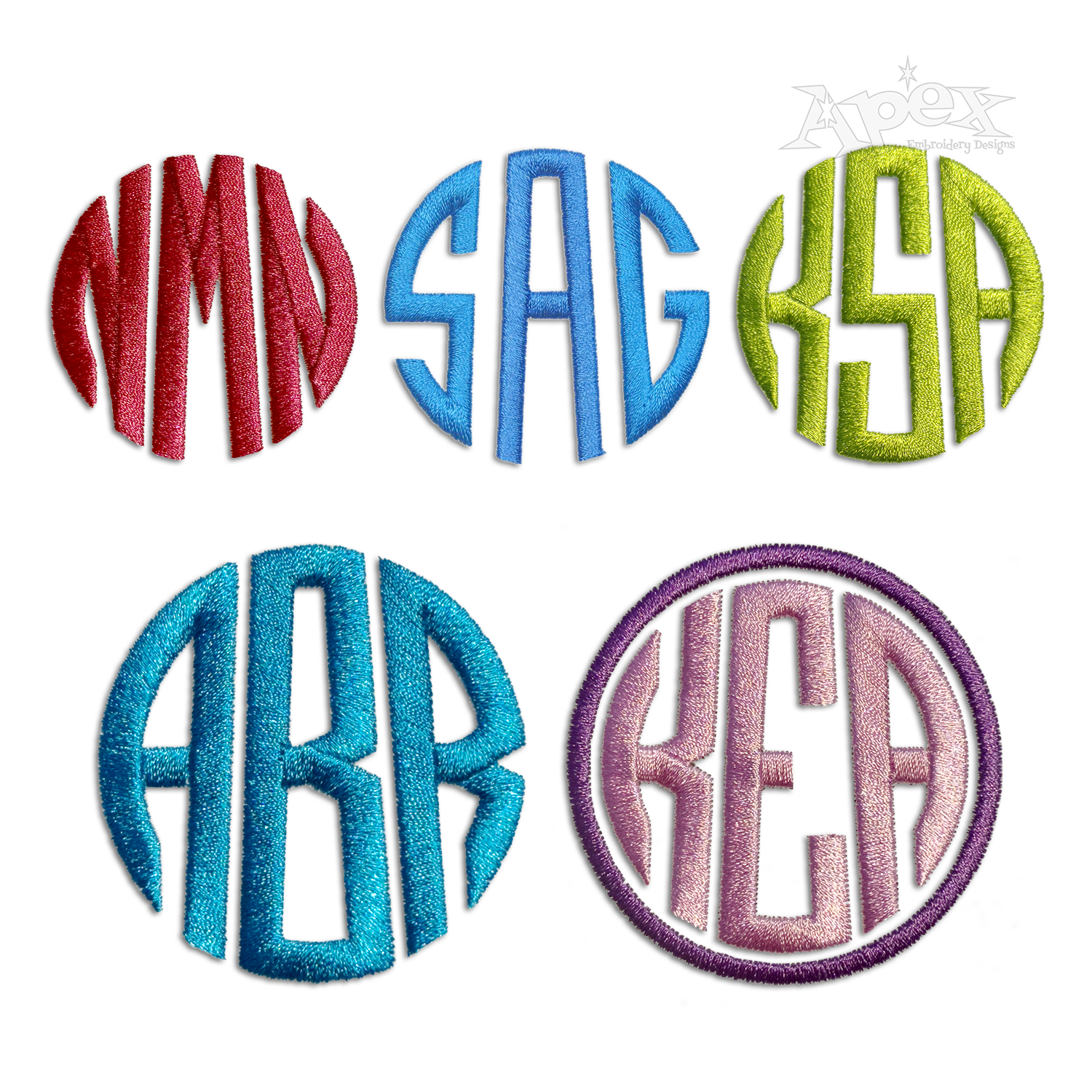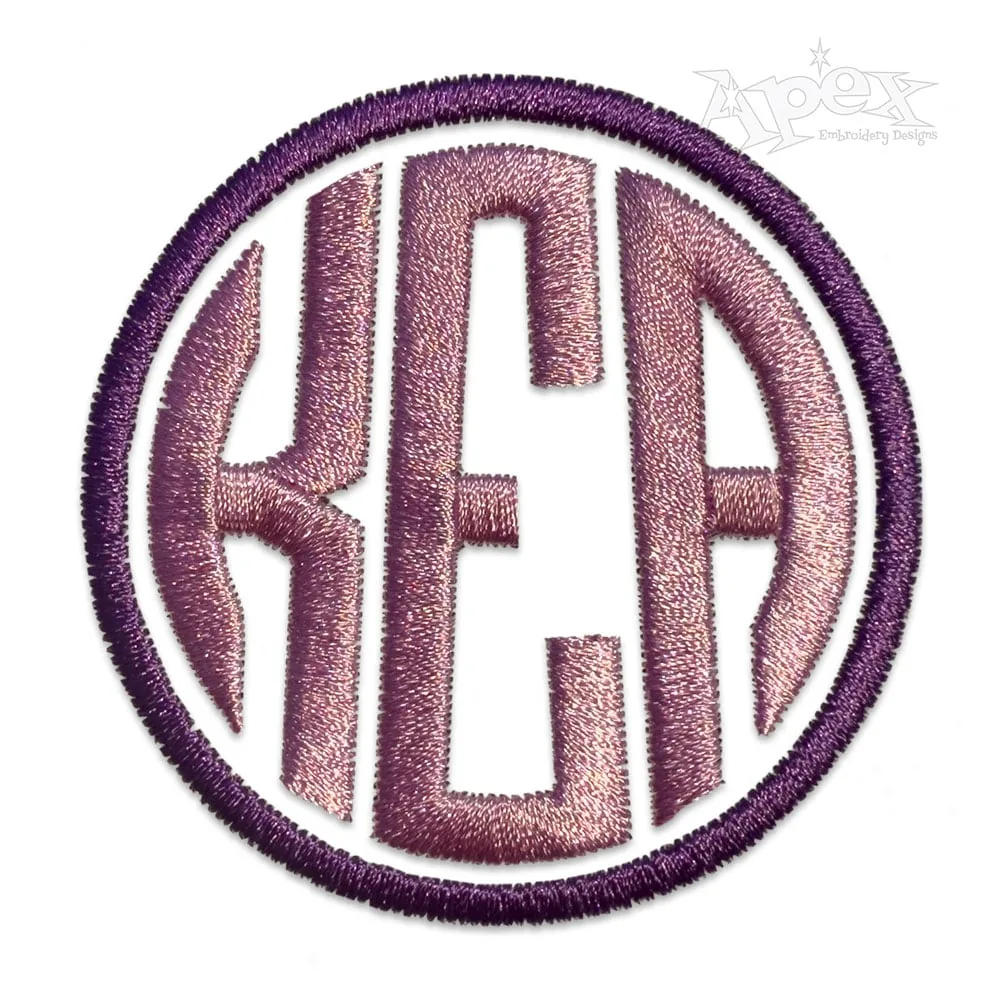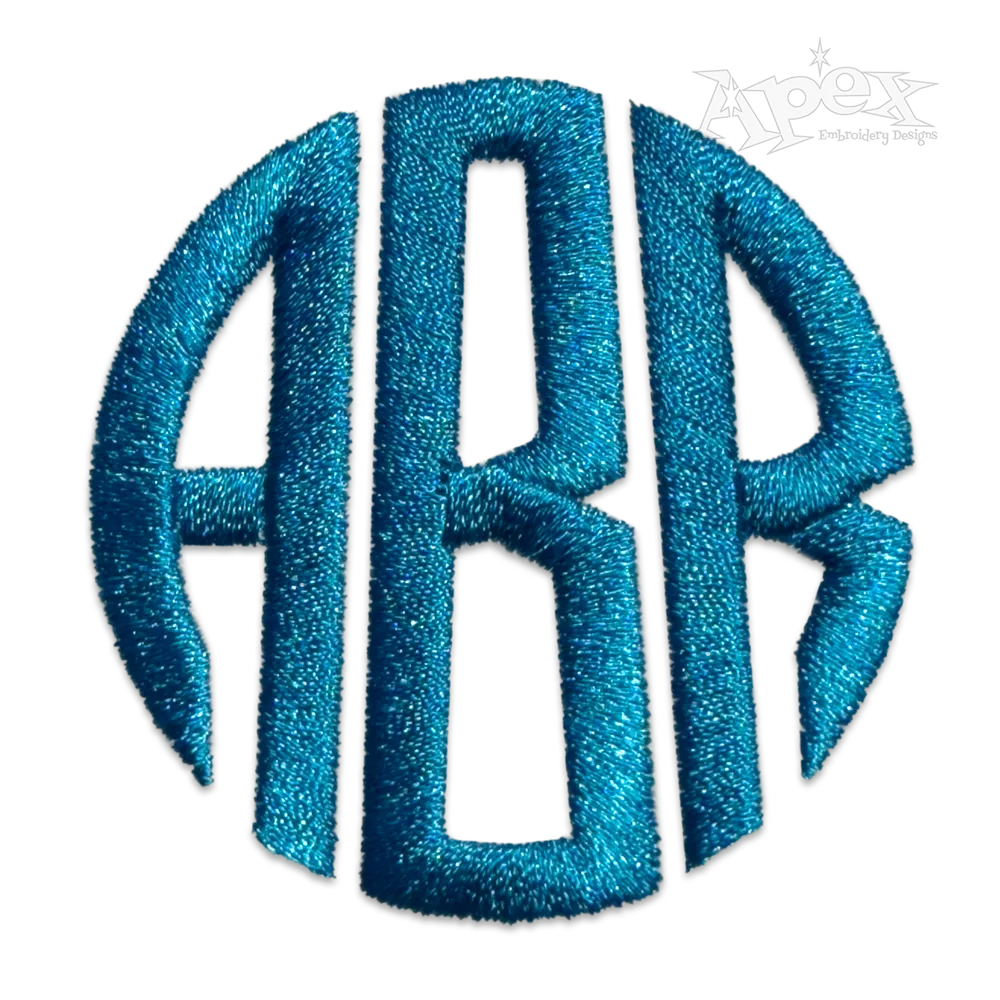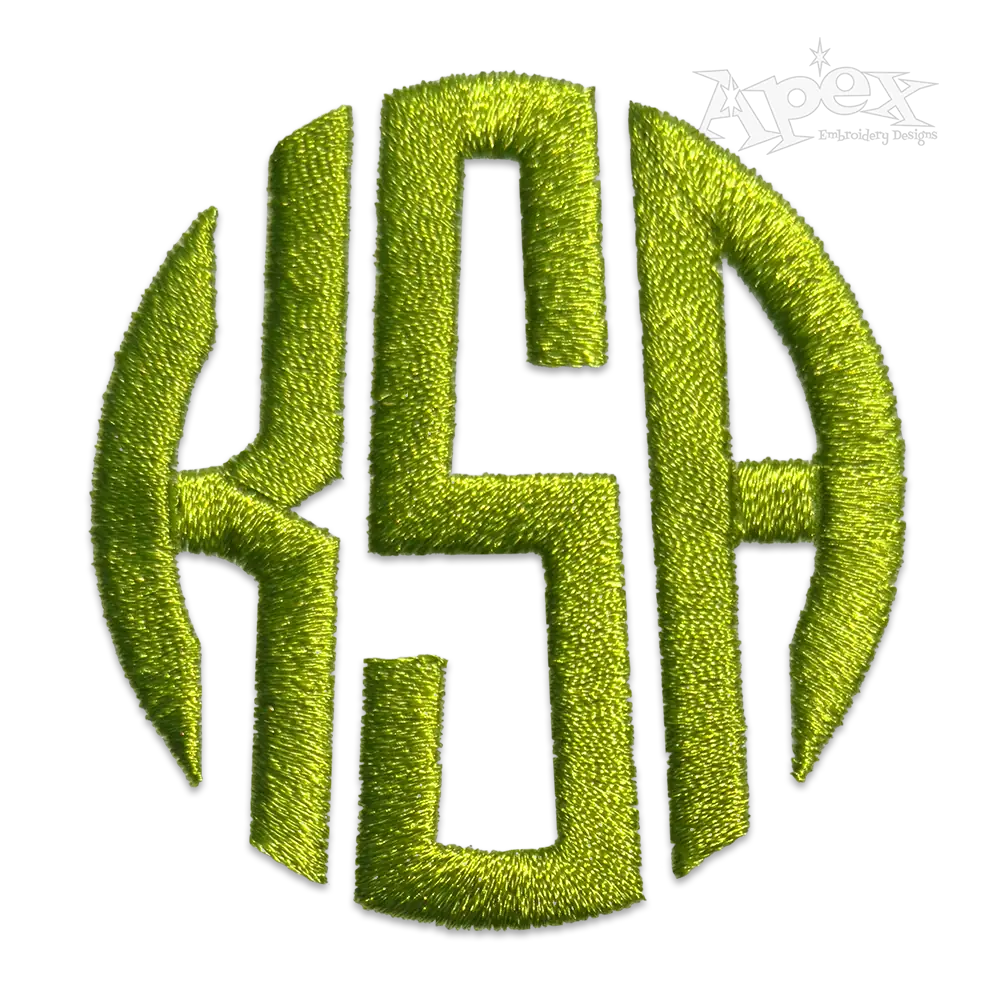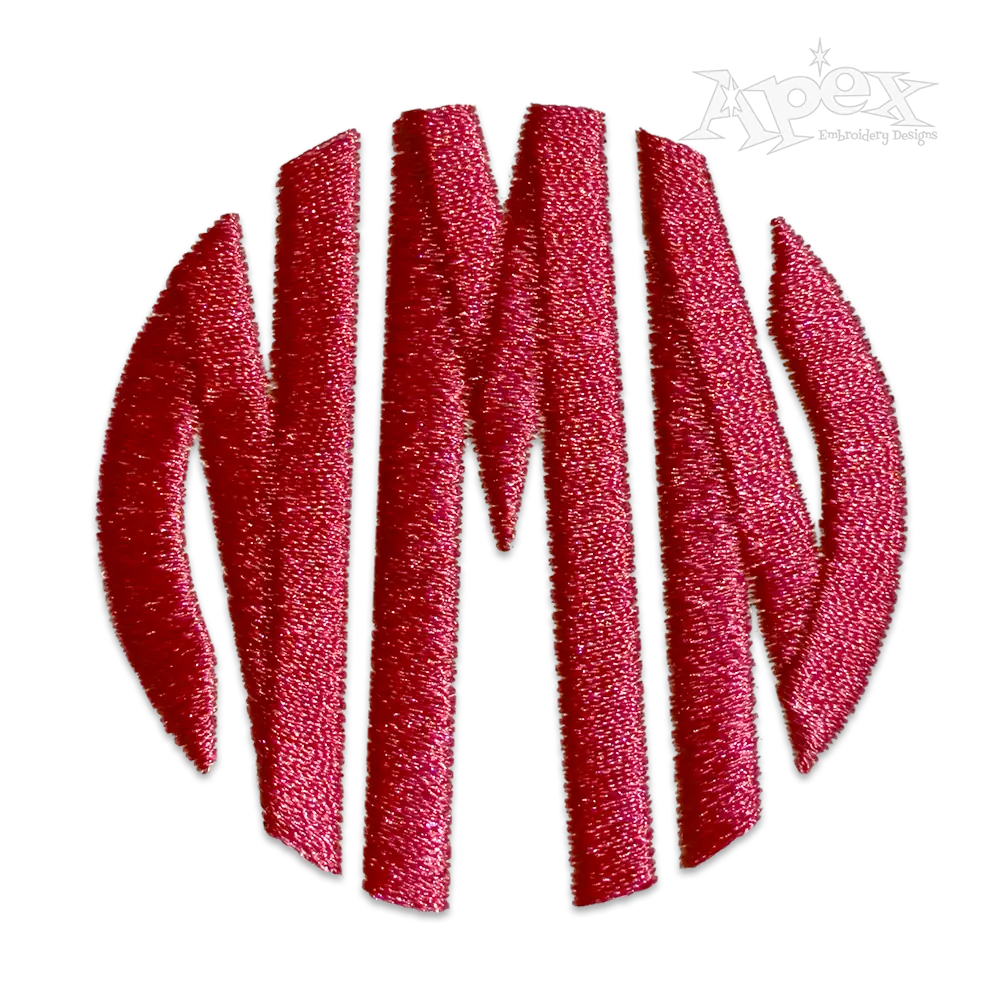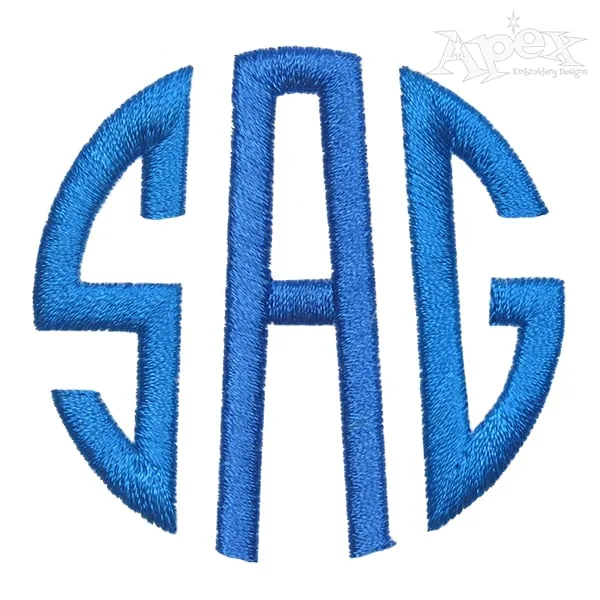
Corin Circle Monogram Embroider Font
There is an enduring poise in a classic circle monogram—a tailored geometry that bridges architectural precision and bespoke personal heritage. When drafting the Corin Circle Monogram, our focus was to capture the refined elegance of vintage signet seals and traditional European crests, re-imagining them for modern embroidery machines. Each individual letterform has been sculpted to naturally follow the perimeter of a cohesive medallion, allowing the left, center, and right initials to unite in graceful, circular harmony. Under the needle, the satin stitches glide with fluid grace, reflecting the light with a quiet luster that instantly elevates everyday textiles into cherished heirlooms.
Corin Circle Monogram Craft & Letterform Details
The beauty of a circle monogram lies in its optical geometry: each initial must curve dynamically to preserve the illusion of a continuous circular border while remaining utterly legible and balanced. In digitizing Corin, we developed customized stitch angle paths that travel radially around the outer curves. This calculated angle variation prevents thread bunching at the tight interior pivots while maximizing the reflective sheen of the satin column across broader arcs.
Specialized underlay foundational mapping stabilizes delicate woven fabrics, ensuring the column edges remain razor-sharp without introducing stiff bulk or fabric distortion. Each stroke tapers and expands with mathematical precision, producing smooth, rounded silhouettes that nest seamlessly together without requiring a harsh enclosing frame. The result is a luminous, heirloom-grade embroidery font that honors timeless tradition while stitching with modern speed and flawless consistency.